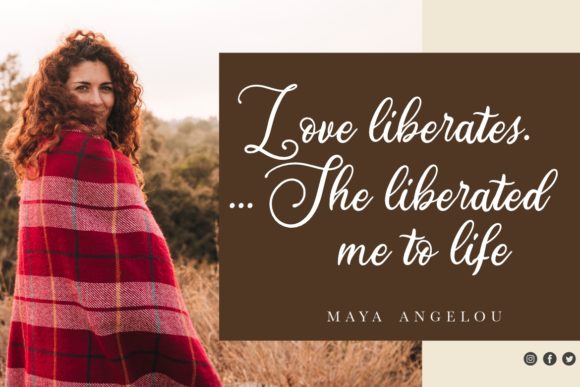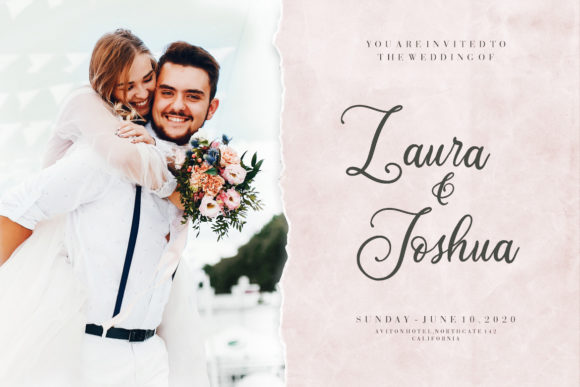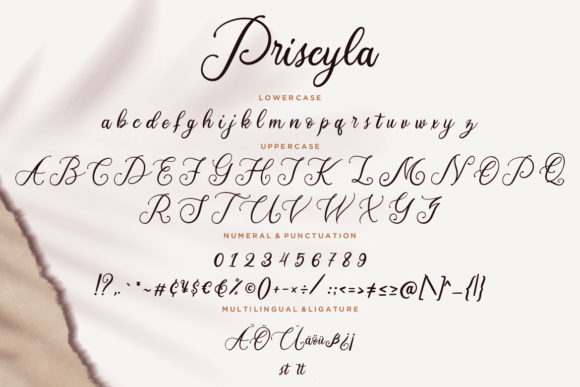
Introduction to Priscyla Font
Priscyla is a flowing handwritten font, described by an elegant touch, perfect for your favorite projects.
Key Features of Priscyla Font